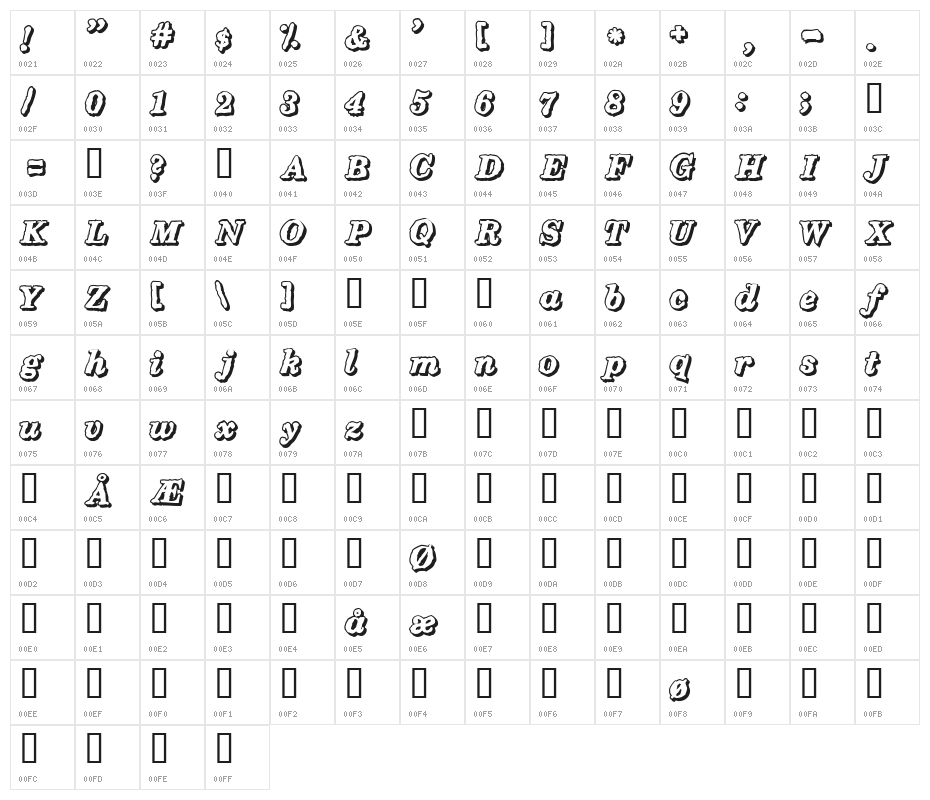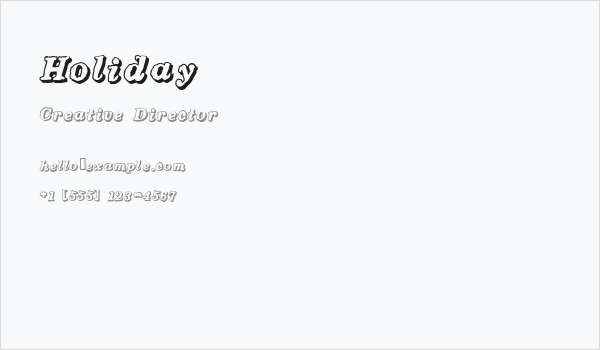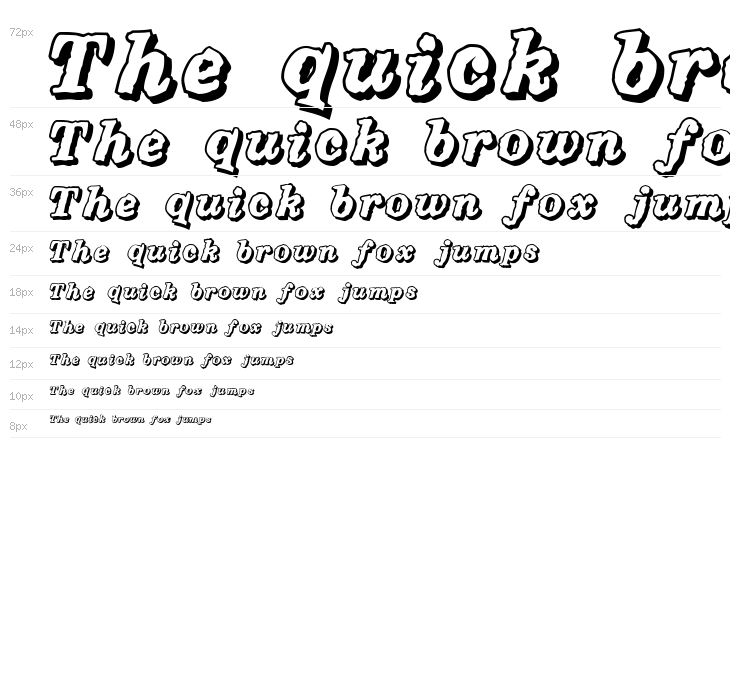
Holiday Font
Holiday Description
This font features a bold, playful style with a three-dimensional shadow effect that gives it a lively and dynamic appearance. The letters are slightly rounded with a thick outline, enhancing their visibility and making them stand out. The uppercase and lowercase letters maintain a consistent style, with the lowercase being slightly more compact. Numbers and special characters follow the same design, ensuring uniformity across all glyphs. The font's unique shadow effect adds depth, making it ideal for eye-catching designs.
HOLIDAY1 UPPERCASE
HOLIDAY1 LOWERCASE
HOLIDAY1 OTHER CHARS
| Overall Style | Playful, Decorative |
| Use Case | Headlines, Posters, Logos |
| Proposed Projects | Perfect for holiday-themed projects, children's book covers, playful branding, or any design requiring a fun and engaging typeface. |